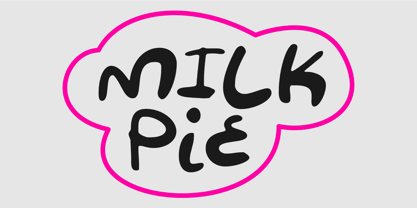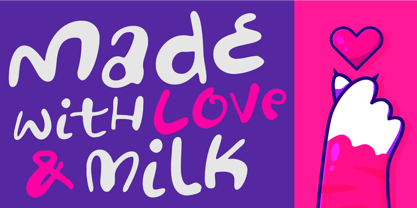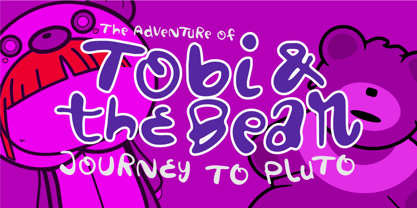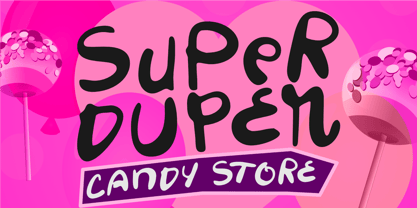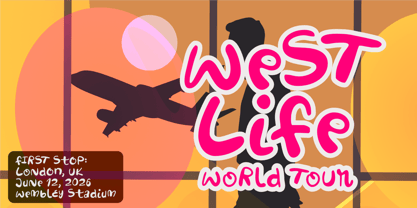
Milk Pie
by Epiclinez
The Milk Pie Font Family was designed by Aldy Sidik and published by Epiclinez. Milk Pie contains 1 styles. More about this family
Milk Pie is a cute, playful, and whimsical handwritten display font that’s bursting with charm and sweetness. Designed with soft curves, bouncy letterforms, and a quirky personality, this typeface brings a warm, cheerful vibe to any design. With its hand-drawn feel and lighthearted rhythm, Milk Pie captures the essence of cozy desserts, childhood joy, and carefree creativity. Each letter feels organic and lively, making it perfect for projects that need a touch of fun and friendliness. Milk Pie shines in kids-themed designs, cartoon titles, bakery branding, packaging, greeting cards, social media graphics, and eye-catching posters. Whether you’re crafting something adorable, tasty, or full of personality, this font delivers a delightful visual treat. Add a sprinkle of sweetness to your work with Milk Pie — where every letter feels like a bite of happiness.